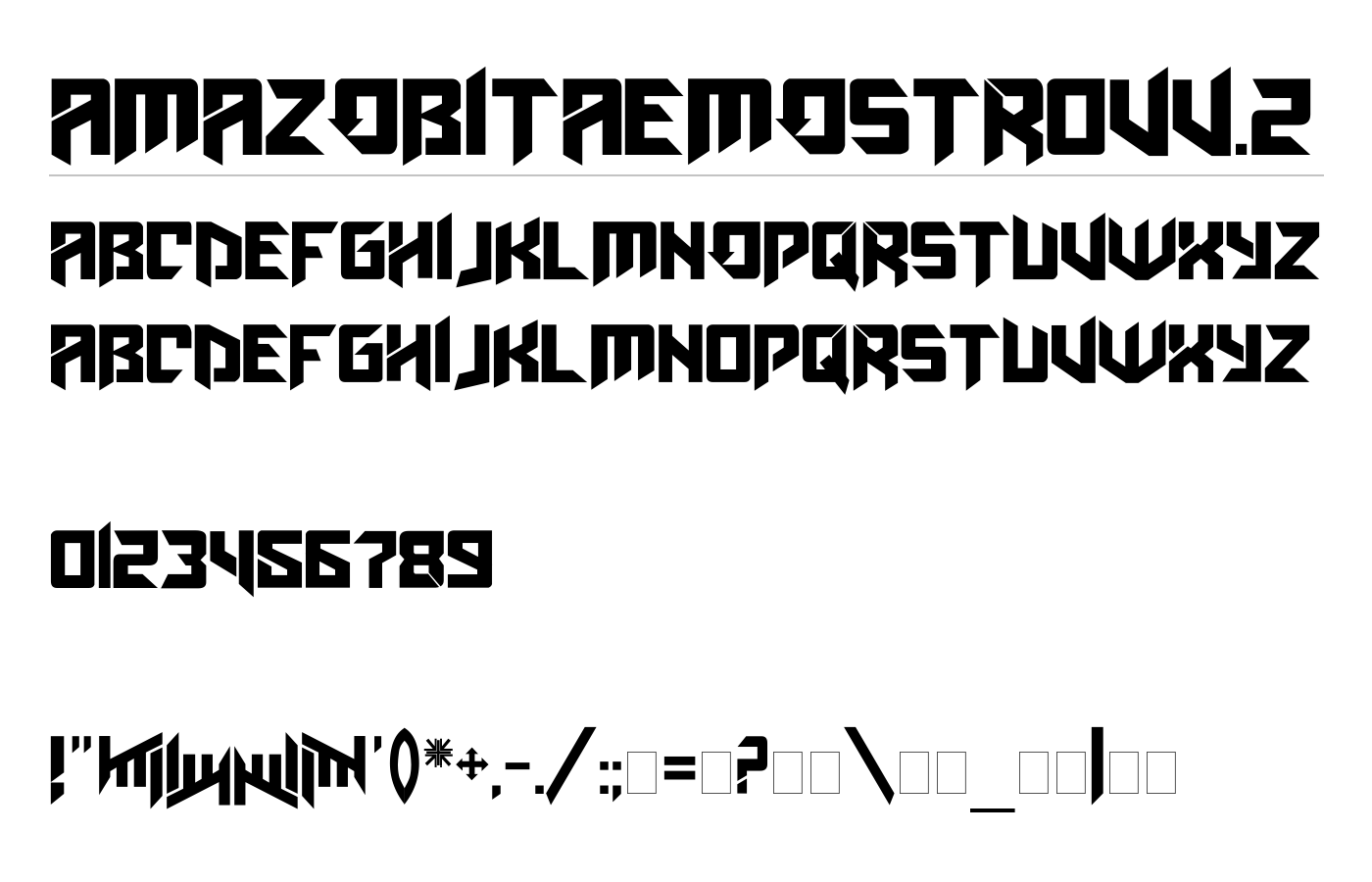
AmazObitaemOstrovV.2 is a bold, angular sans serif font featuring sharp geometric shapes and high contrast between thick and thin lines. Its strong, futuristic personality suits tech, gaming, or sci-fi branding, while the all-uppercase style and compact spacing make it ideal for impactful headlines and logos. This font commands attention with its edgy, modern look, perfect for projects needing a powerful, avant-garde presence.
AmazObitaemOstrovV.2 Font
About AmazObitaemOstrovV.2 Font